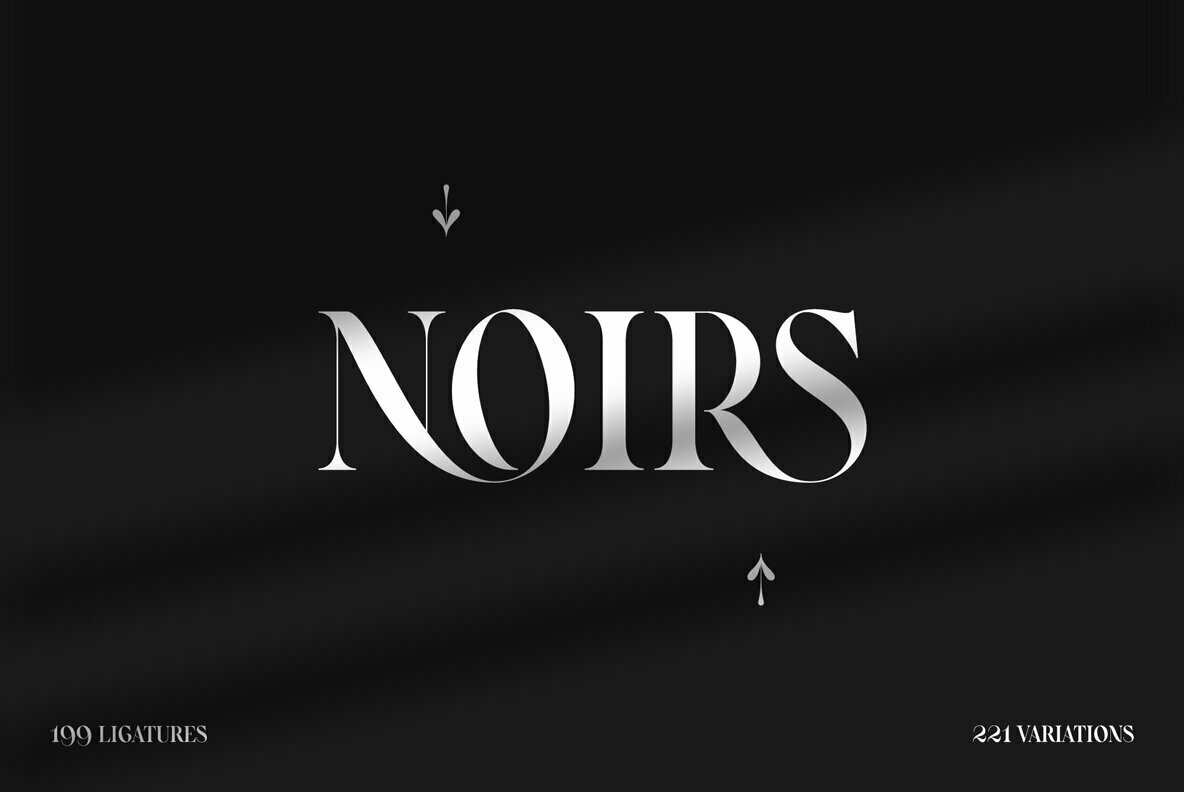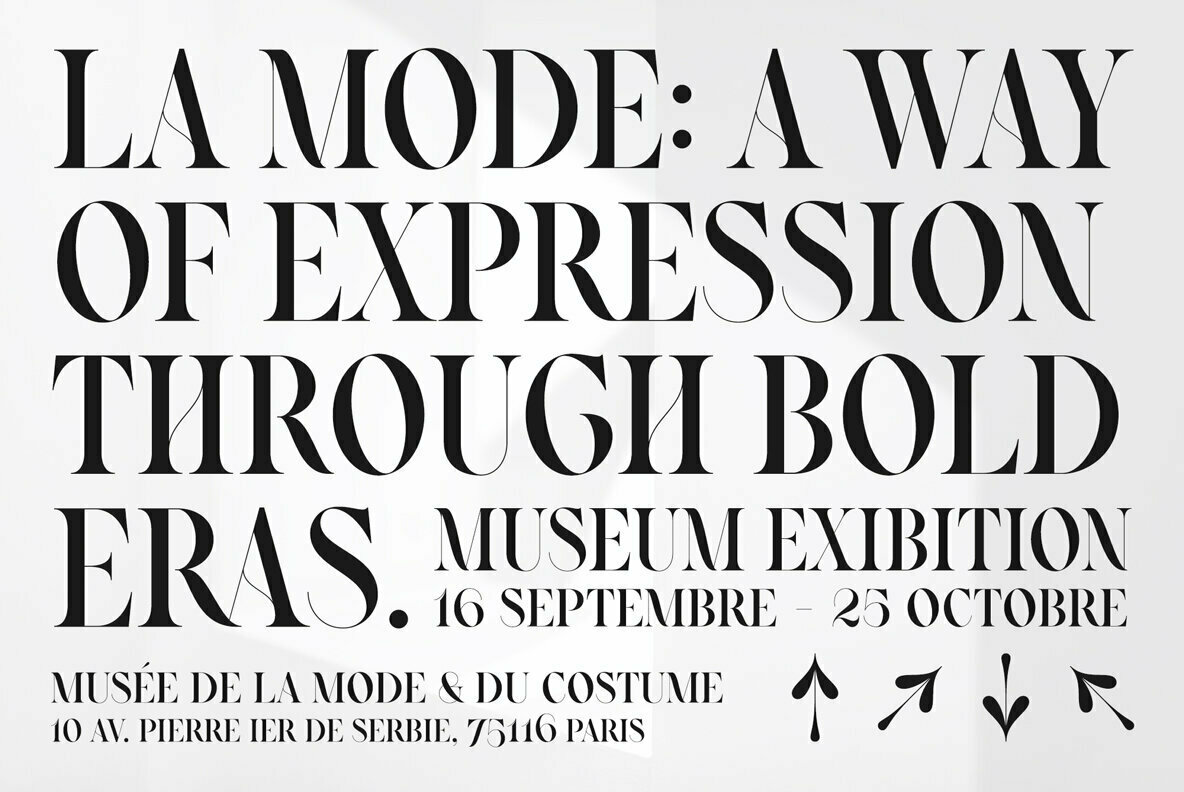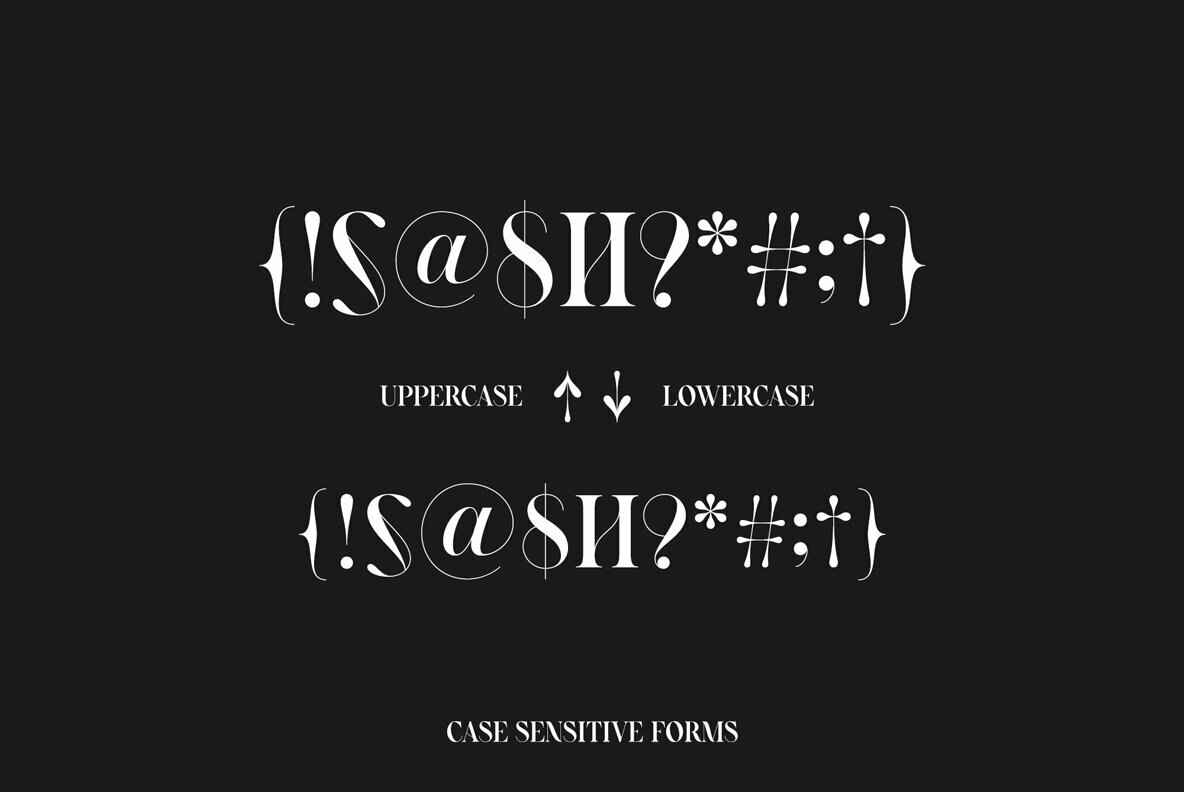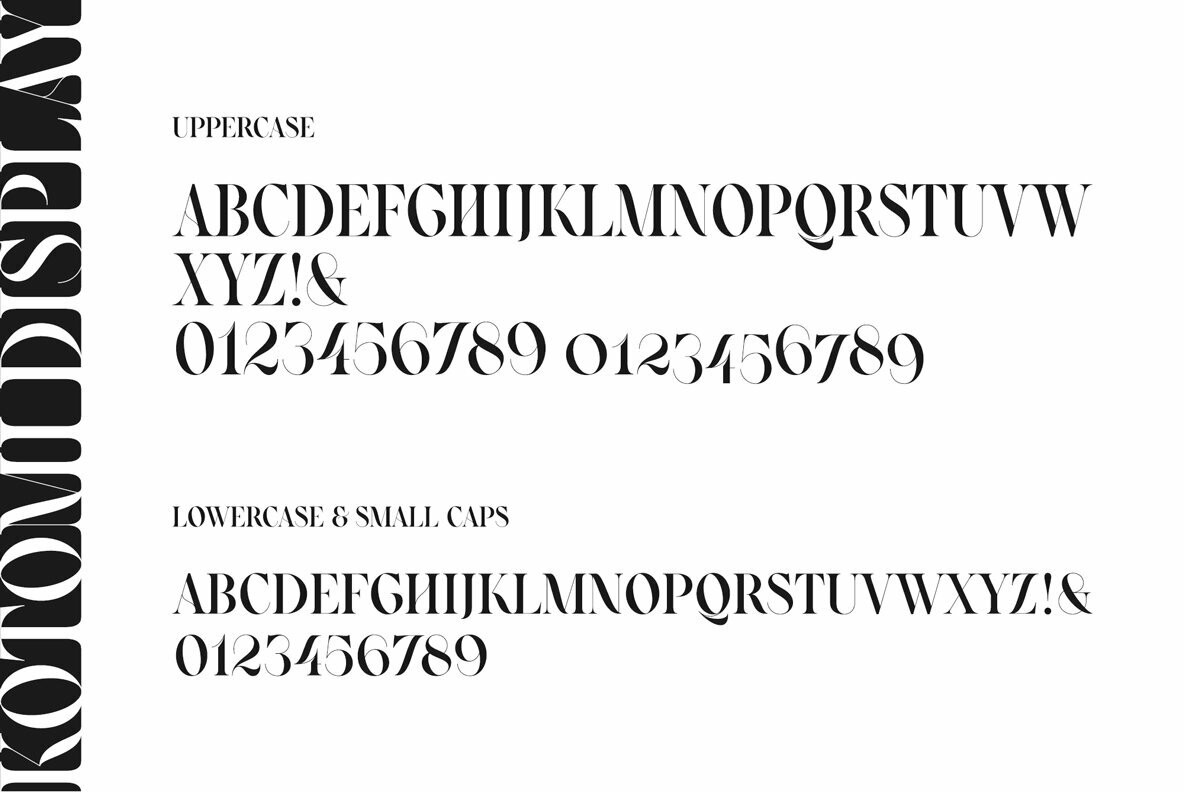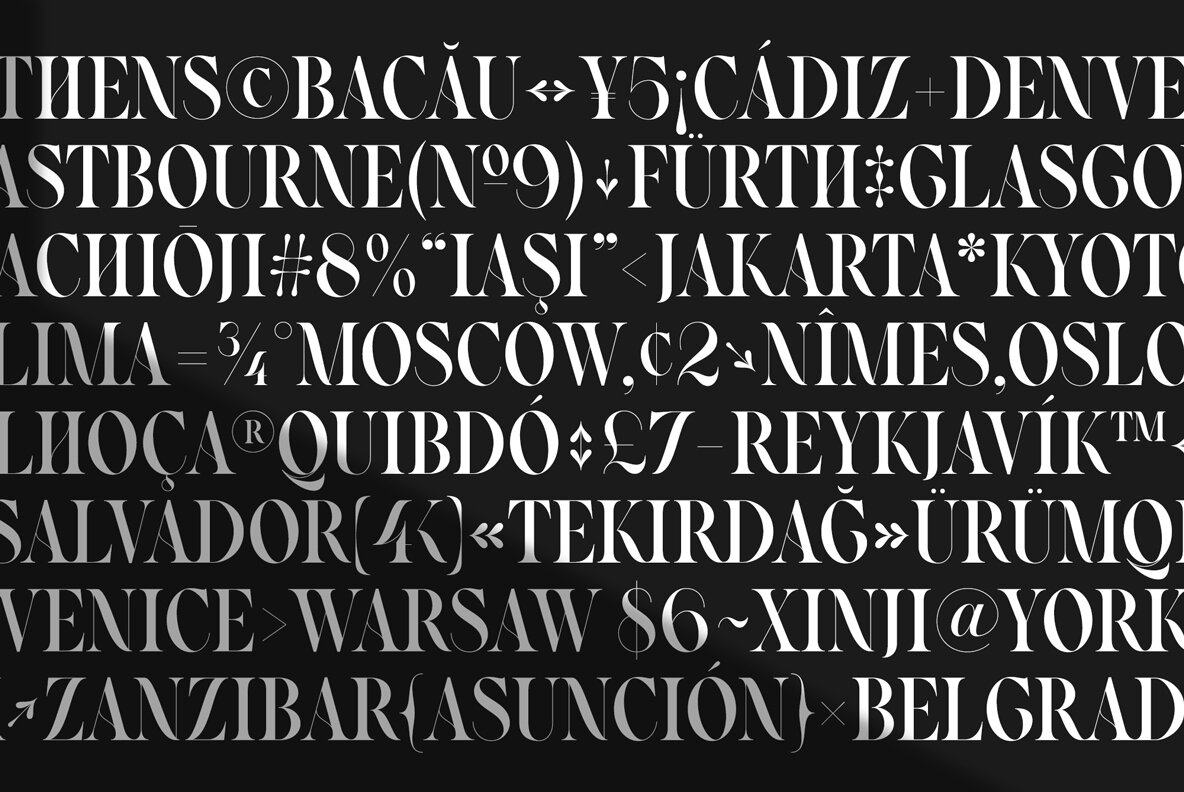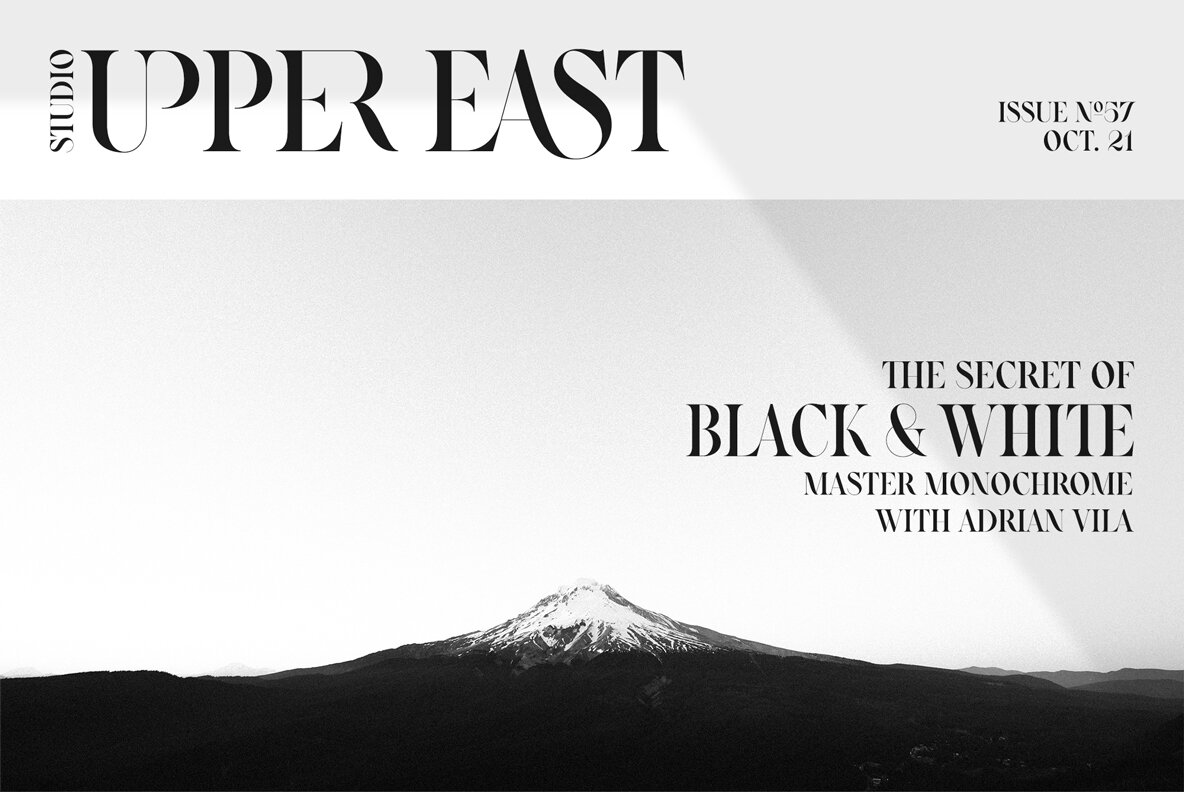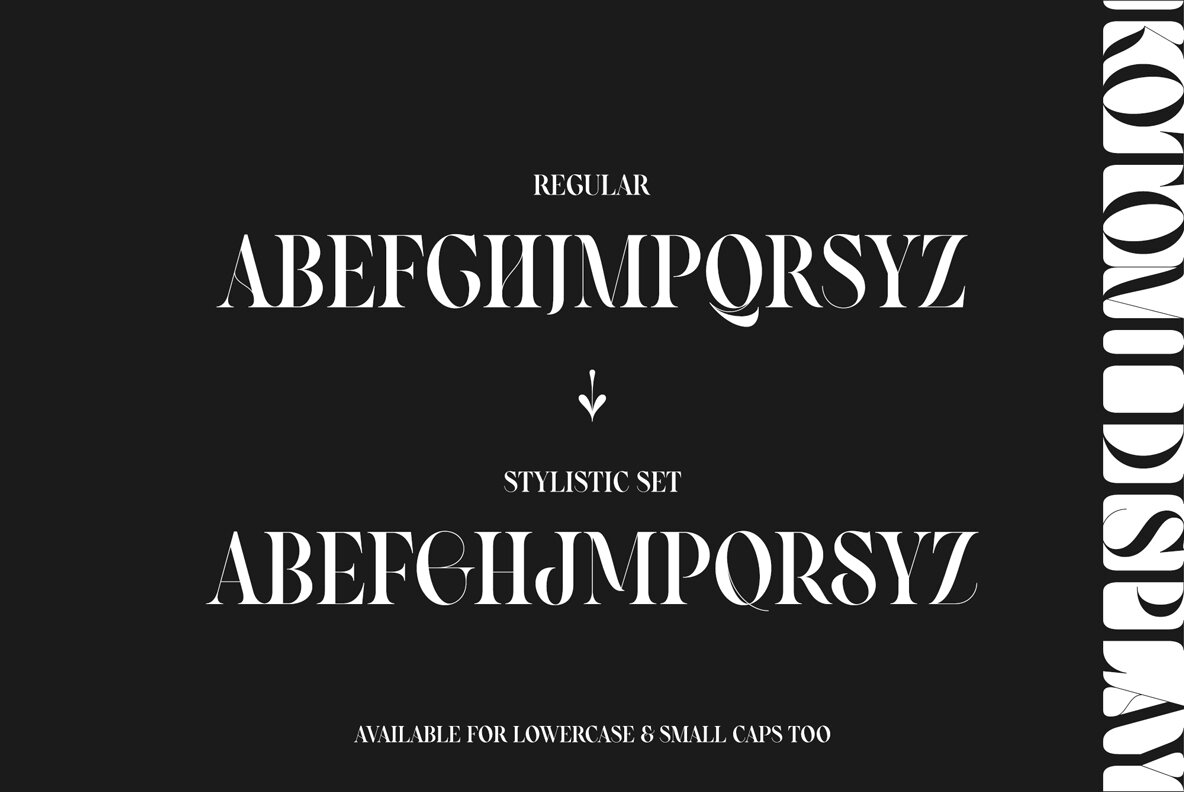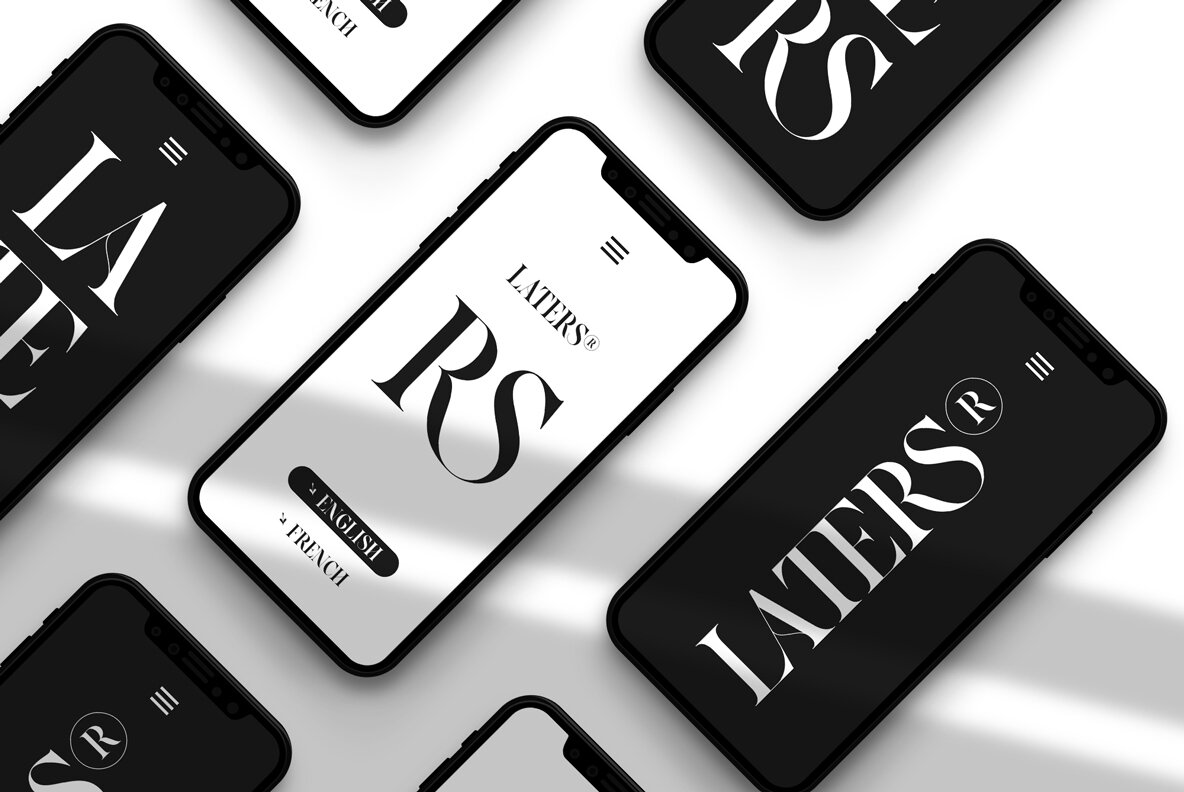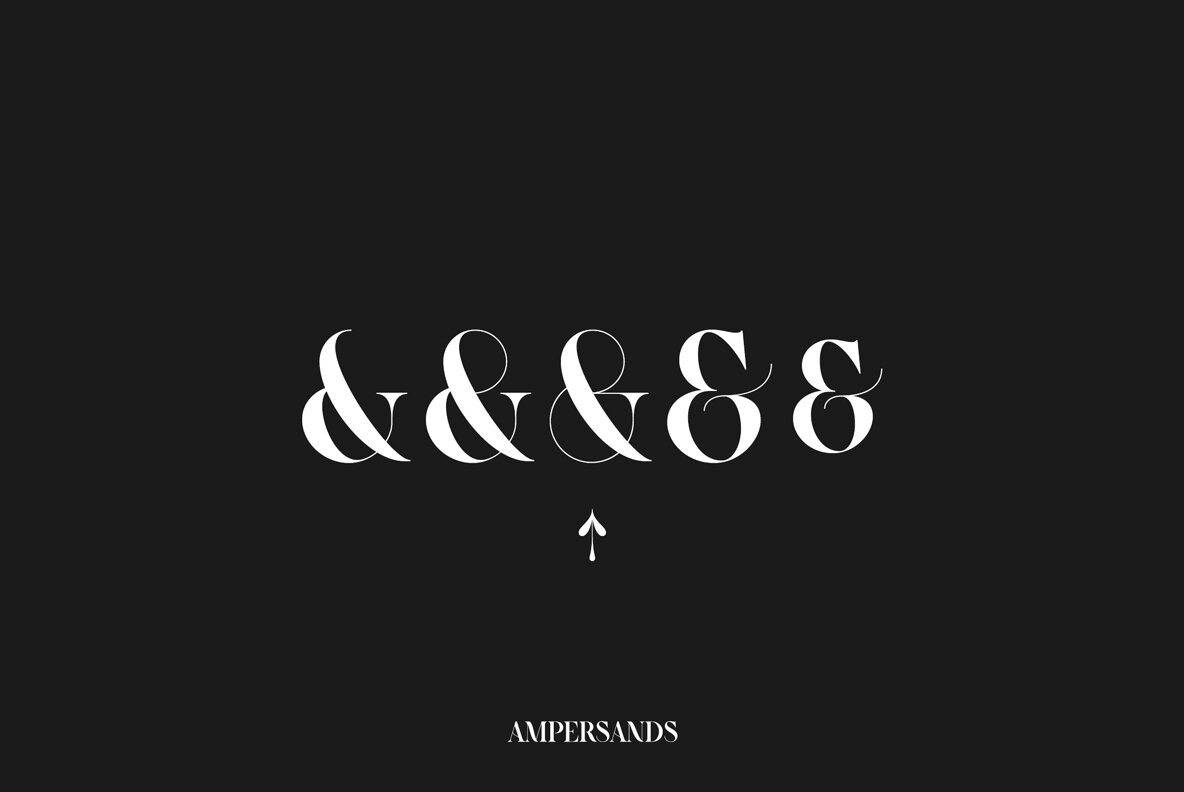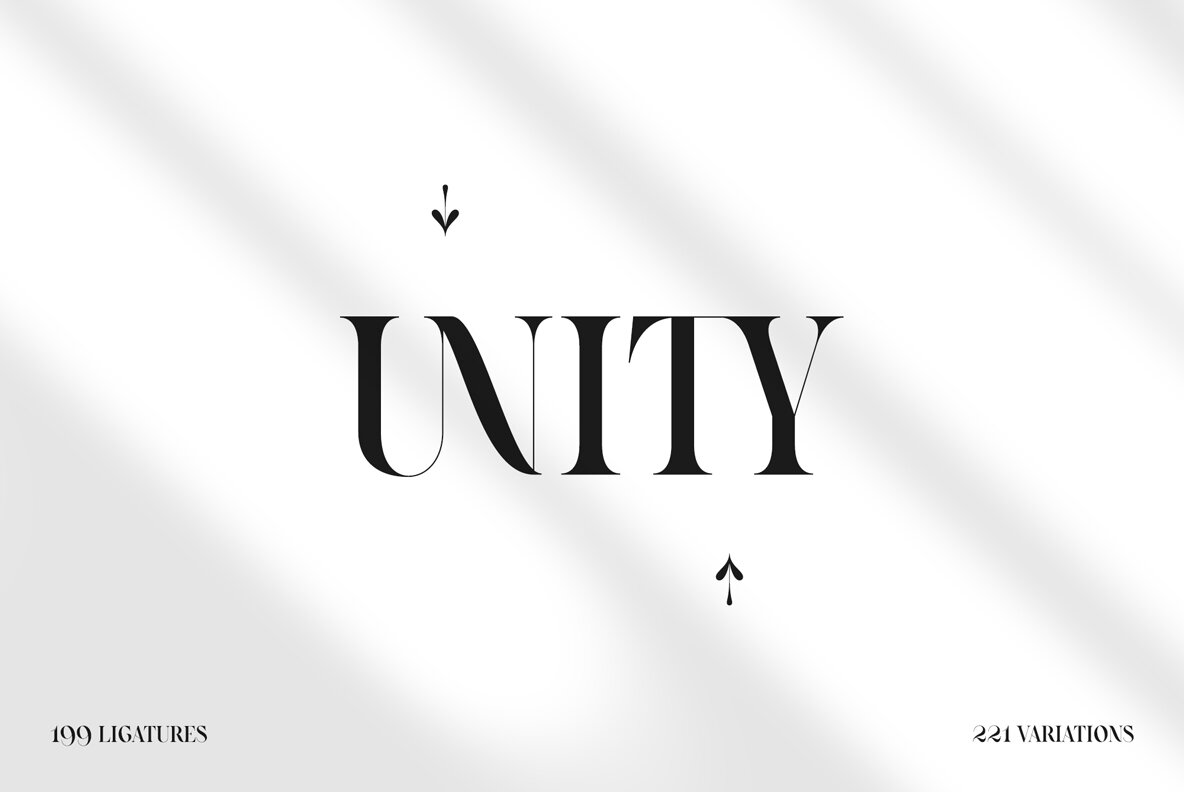
Kotomi Display Font
Kotomi Display
Kotomi Display is a high contrast all-caps serif font with an elegant calligraphic touch.
Inspired by didones, it features thin bracketed serifs, sleek lines, proportioned curves, angled axis...all, with a sense of fashion.
Designed for high end branding, Kotomi Display is intended for large titles and big headers where its sharp and refined finish is particularly appreciated.
The font is equipped with beautiful alternates and countless ligature variations that flows in harmoniously to achieve a well balanced combination and a legible composition.
With a set of 1414 glyphs, Kotomi Display can serve a wide range of projects from editorial to branding, logos, posters, magazines, blog titles, packaging, wedding invitations, social media and more.
Included case sensitive punctuation, numerals, symbols and multilingual support for western, central and south east European languages.